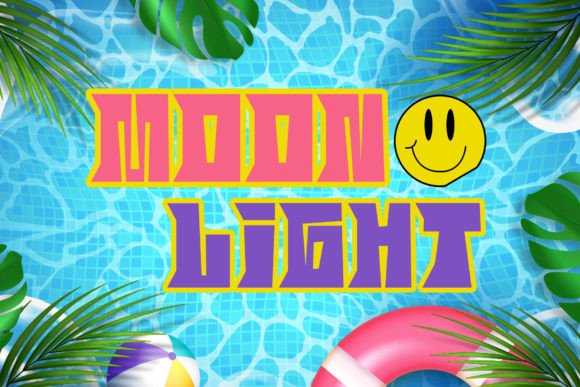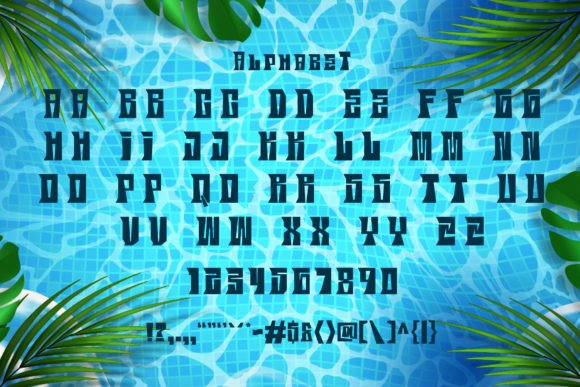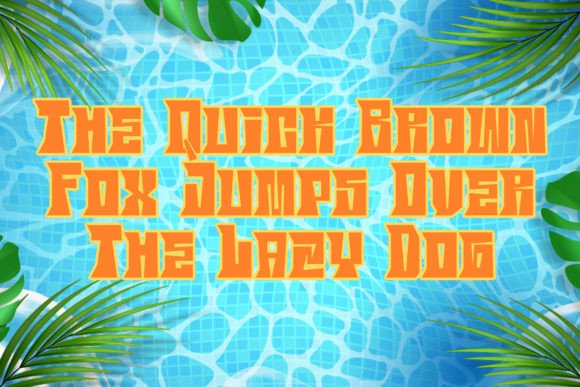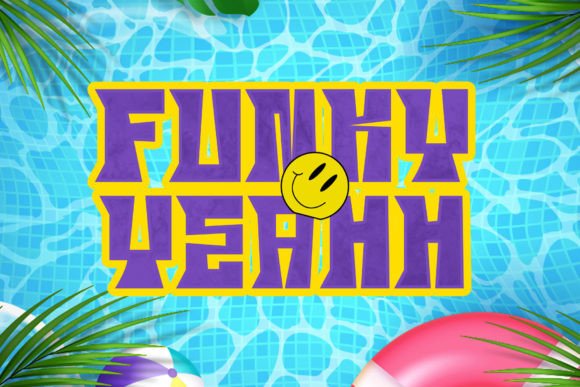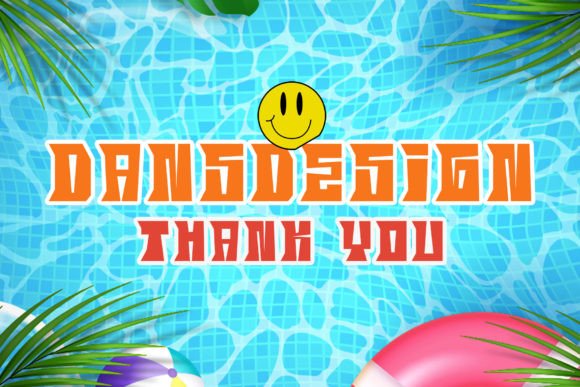
Introduction to Moon Surfer Font
Moon Surfer is a playful and quirky comic font that exudes a fun and carefree vibe.
The letters have a slightly wavy and irregular shape, giving them a hand-drawn feel Bold lines and semi-sharp edges add to the playful look of the font, making it perfect for titles, headers, and other eye-catching design elements that need a touch of humor.